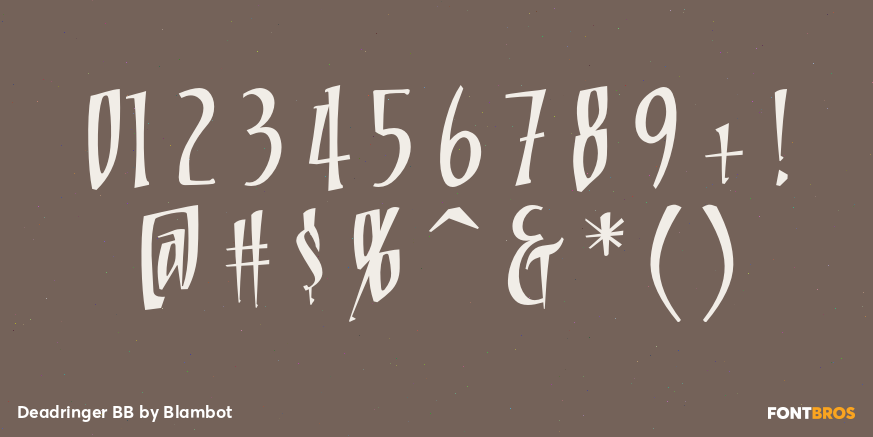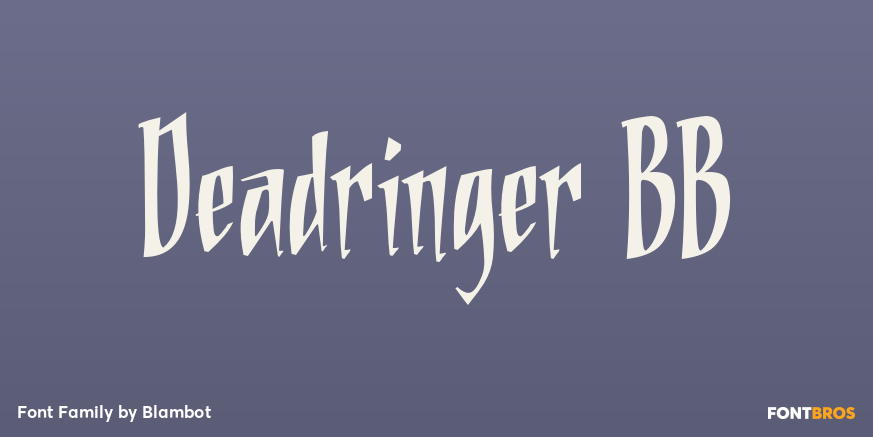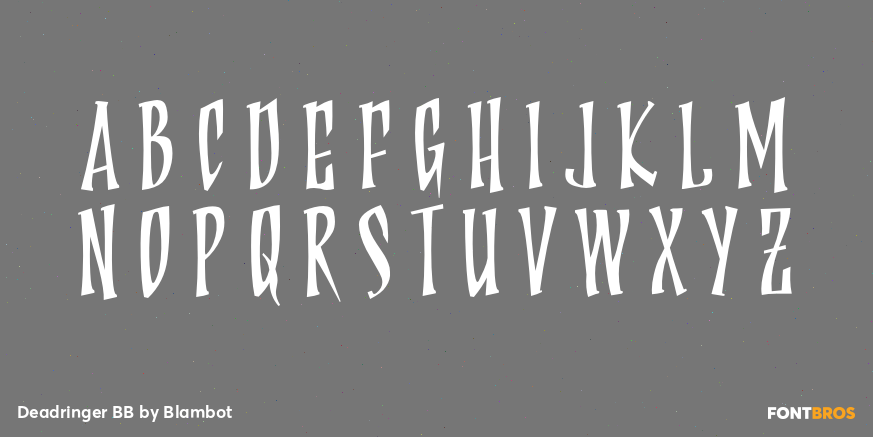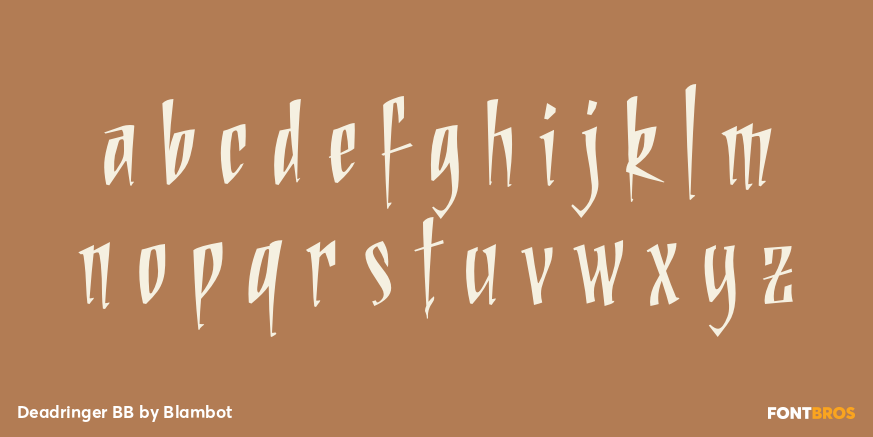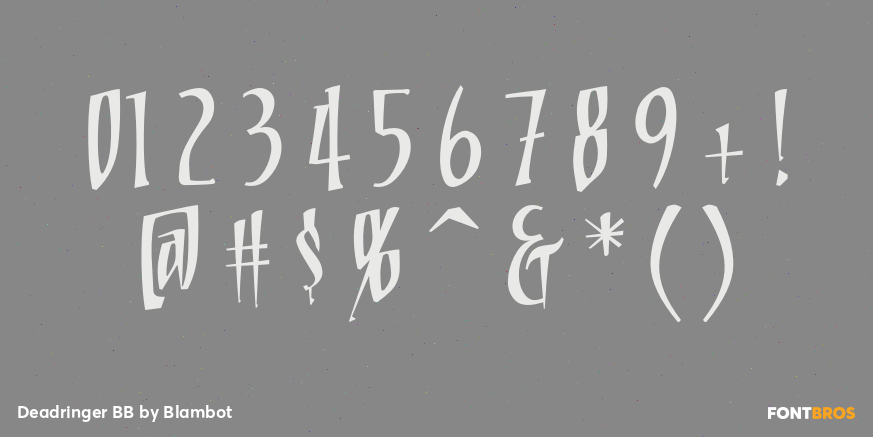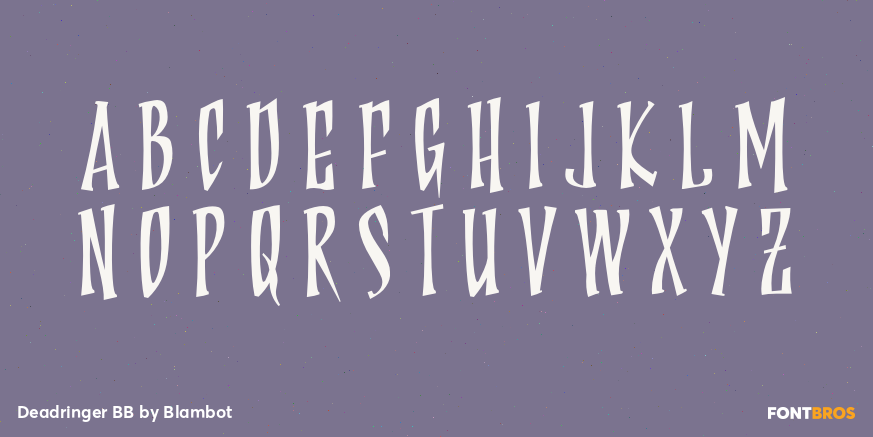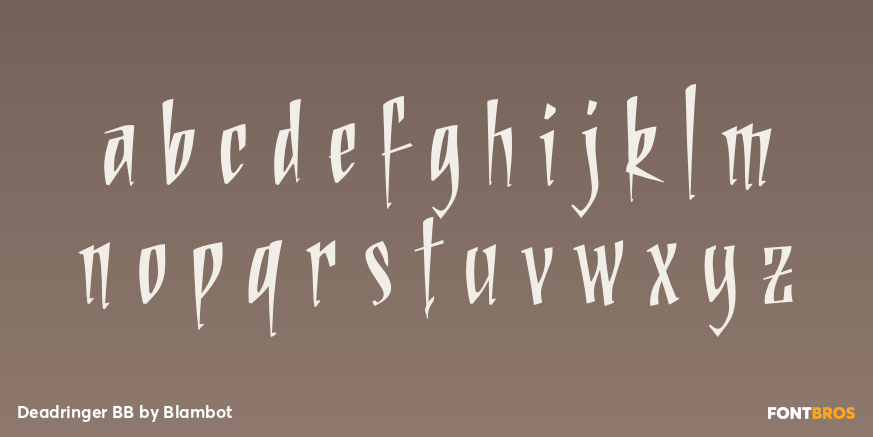
Deadringer BB
Font Family by Blambot
Deadringer BB is a handwritten historical display family with a rough, expressive feel that suggests old notices, weathered lettering, and a distinctly vintage voice. Its irregular strokes give layouts a lived-in character that feels more personal than polished, making it a strong choice when you want type with grit and atmosphere.
This family includes 2 styles, Regular and Italic, giving you a little extra flexibility for emphasis and contrast while keeping the look consistent. Use it for posters, themed branding, packaging, signage, or other display work that benefits from a hand-drawn, period-inspired touch.